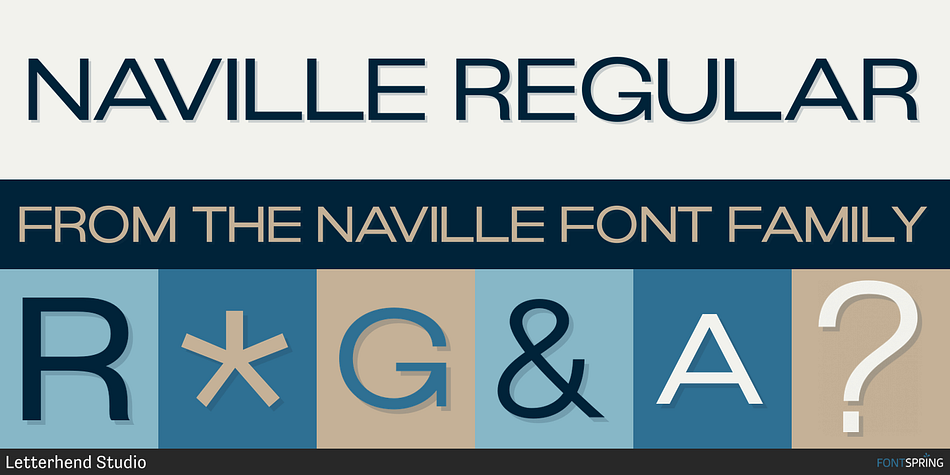
NAVILLE REGULAR
Designed by Hendry Juanda, Naville is a sans serif font family. This typeface has six styles and was published by Letterhend Studio.
Introducing, Navillè Sans, the all caps font family. This family has 6 weights - extra light, light, reguler, medium, semibold and bold. The clean and simplicity look of the font suitable for wide range of graphic needs especially for headline, title, sign board, information board, billboard and for UI/UX design.
- Support for 17 different languages
- contains 222 glyphs
- Consist of 6 font weights